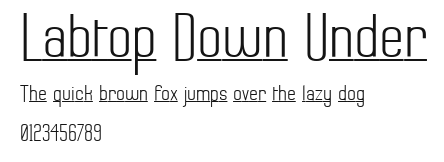
Labtop Down Under Preview
• Font Name: Labtop Down Under
• Designer: Graham Meade
About Labtop Down Under.ttf
Labtop Down Under.ttf is a modern, elegant sans-serif font designed for ultimate readability and visual harmony. Perfect for branding, headlines, web design, and print materials.